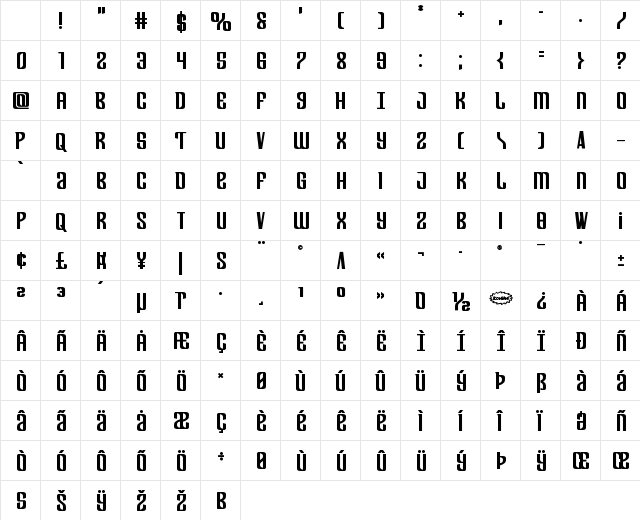
Complete Department H Title Bold glyph index. Displaying only characters natively supported by Department H Title Bold font.
Department H Title is a composed and adaptable typeface that performs quietly and consistently across a wide range of design contexts. Its bold stroke weight gives it real presence on the page.